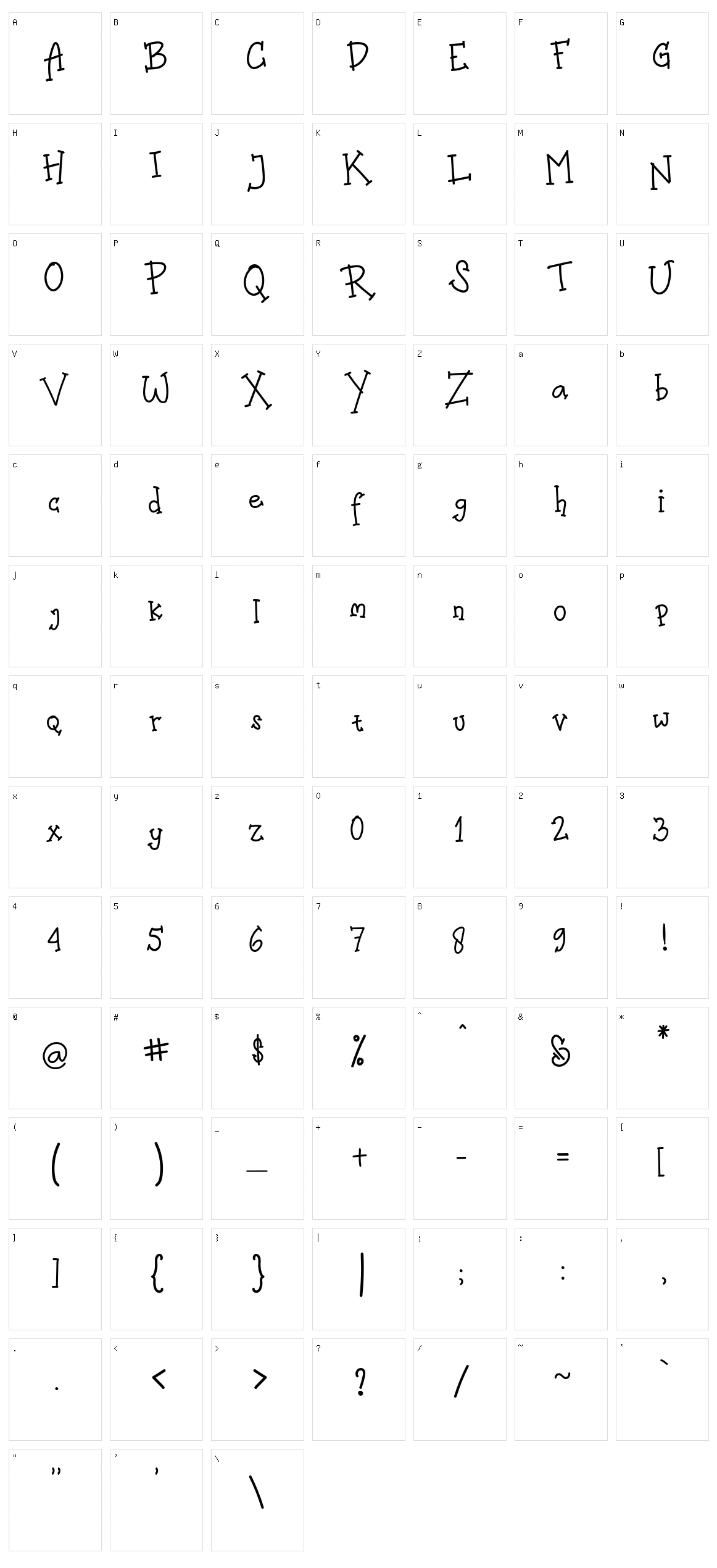
The free font Malchior Darrel is carefully designed by Chichucha, showcasing a thoughtful balance of creativity and usability and falls under the Cartoon font style. When you download the ZIP file, it contains only 84.46 KB of font files, making it lightweight and quick to download. Please review the license details below to understand permitted usage and distribution rights. If license information is not available, we recommend using this font for personal projects only or contacting the author directly for commercial usage permissions.
Introducing Malchior Darrel
Malchior Darrel font with a handwritting style, this font perfect for branding, invitation, stationery, brochure, social media posts, birthday, playground, daycare,gift, school, product packaging, product designs, label, special events or anything.
Malchior Darrel comes with Lowercase letters are small caps, symbols and numerals